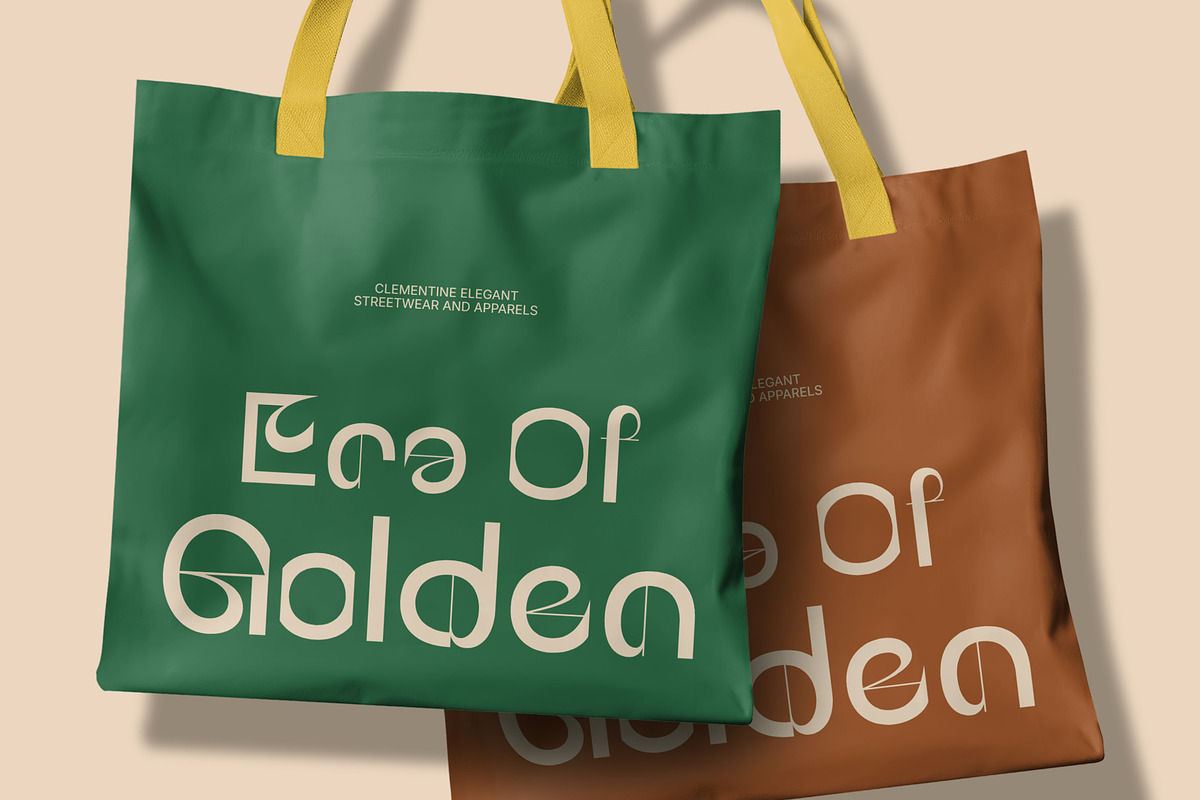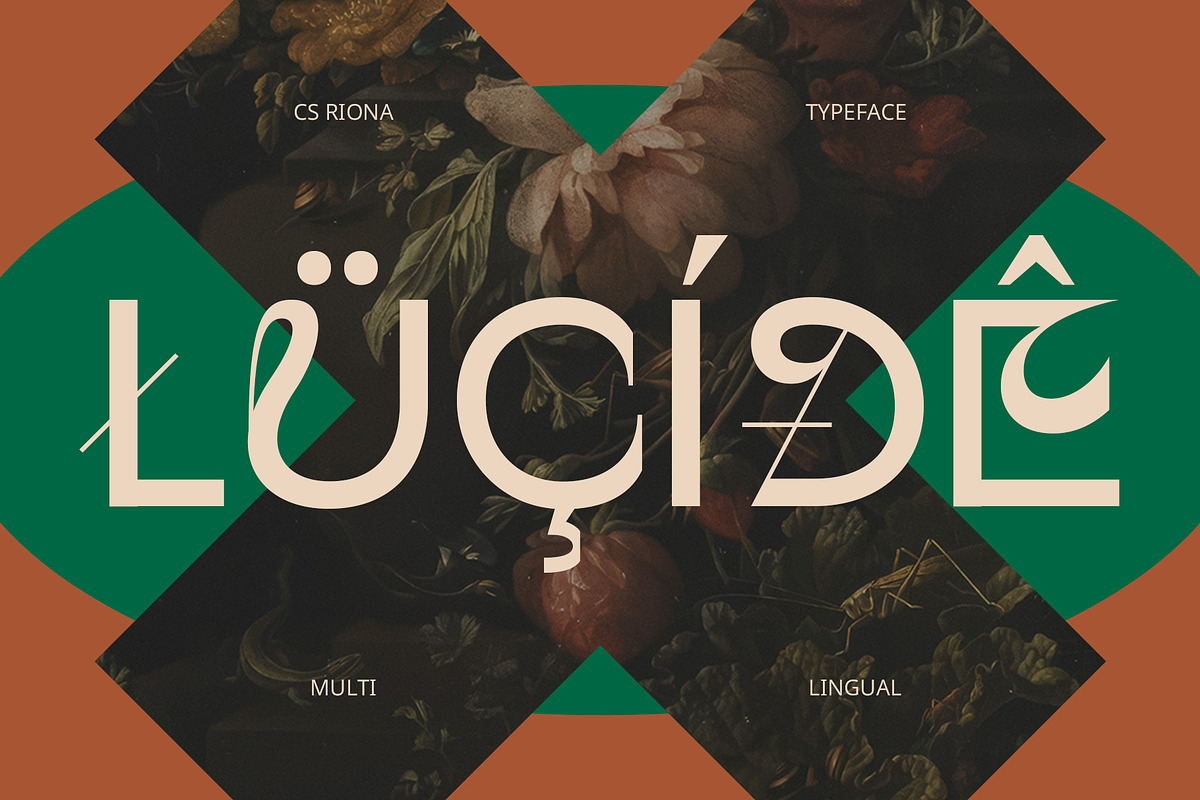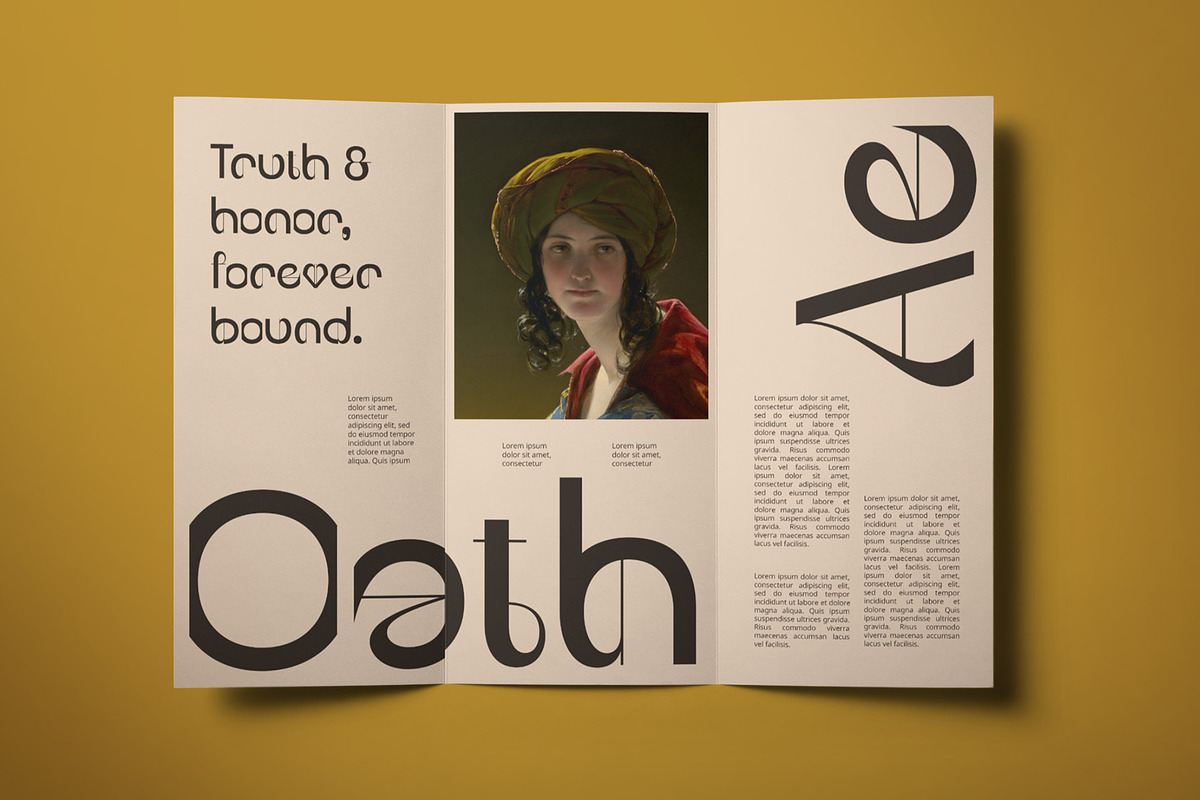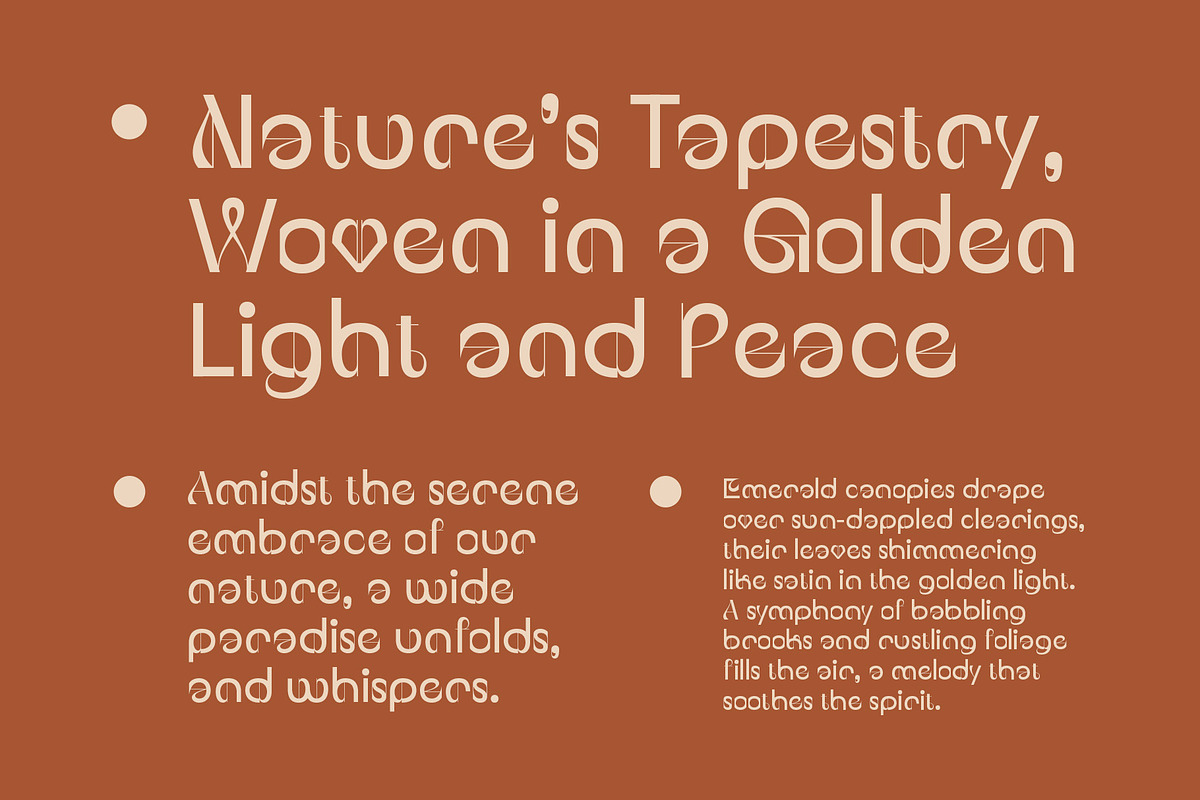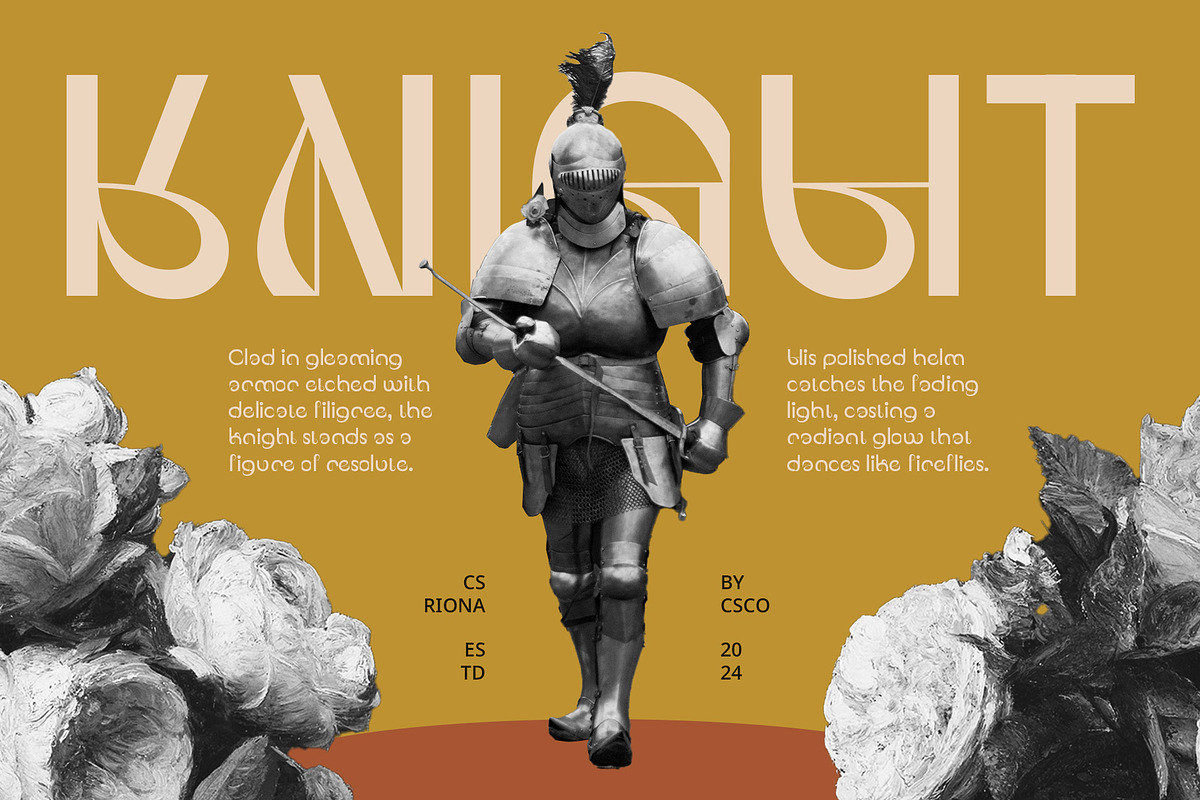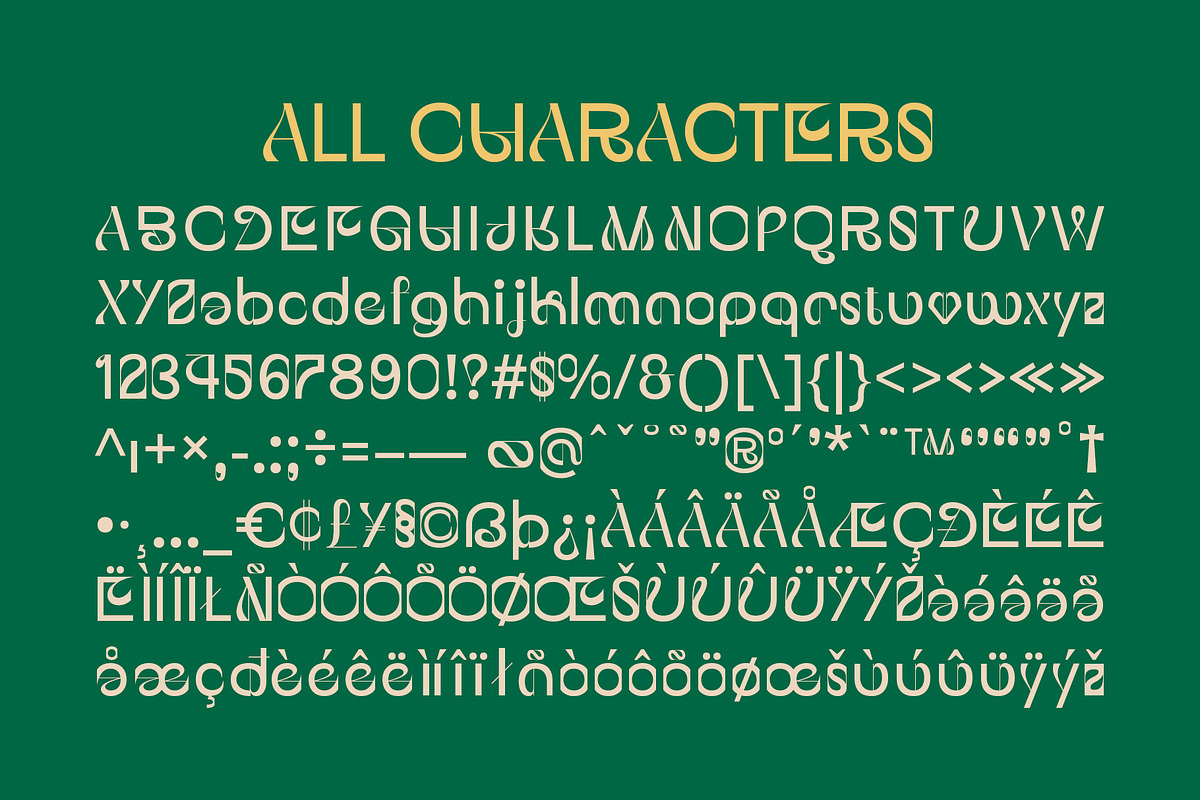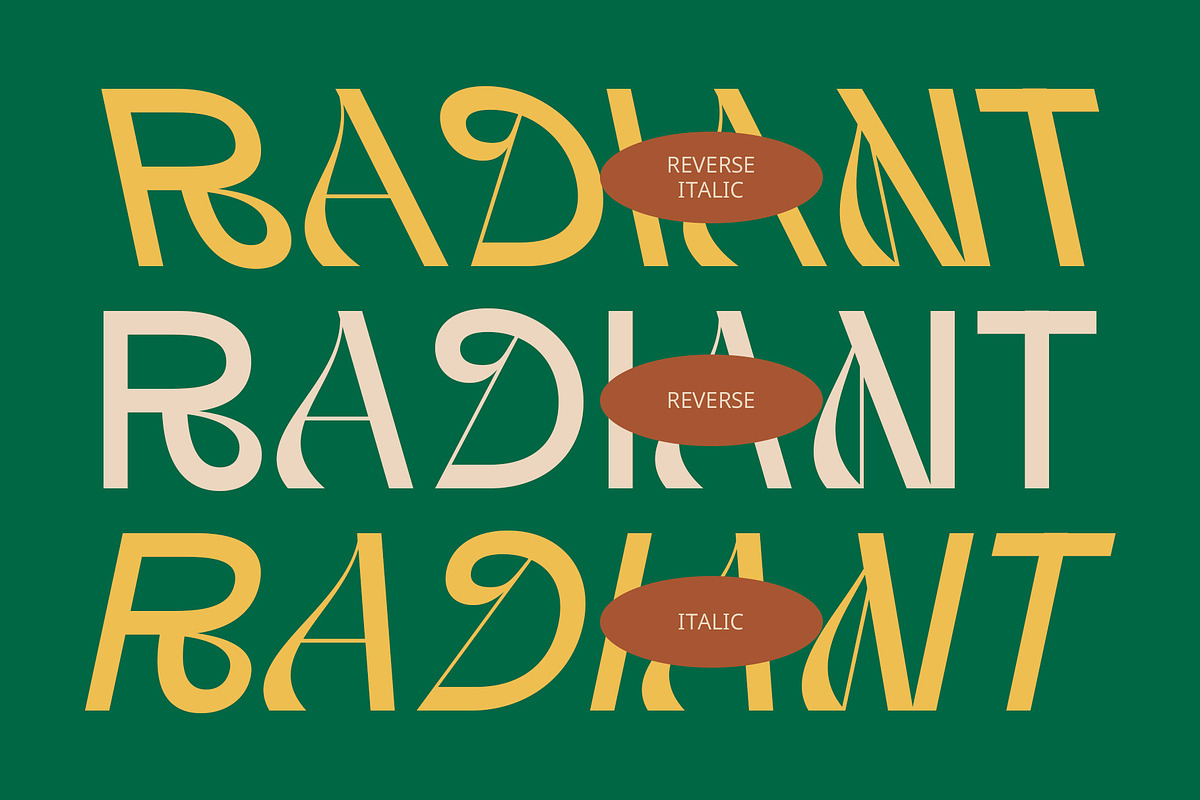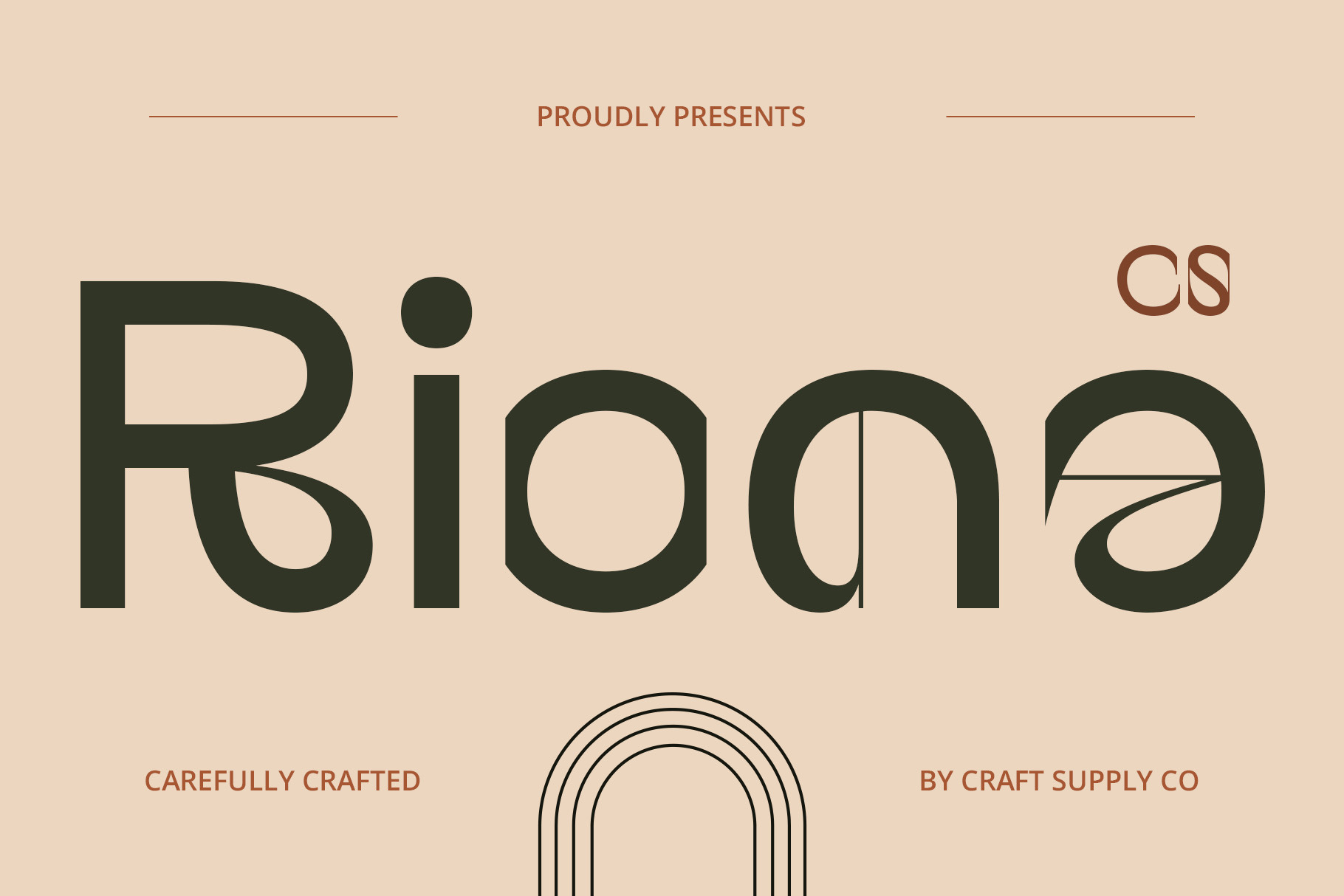
CS Riona – Decorative Font
CS Riona – Decorative Sans-Serif Font
Bold, Creative, and Unconventional Expression CS Riona is a modern sans-serif display font designed to captivate with its bold, distinctive style. It features a combination of visually engaging and unconventional design elements, including distorted letterforms and artistic ornaments that set it apart from the crowd. The strong lines and dynamic shapes give the font a confident presence, while its playful nature adds a creative flair.
Ideal for Fun, Energetic, and Youthful Designs This decorative font excels in projects that demand attention and creativity. Its striking appearance makes it well-suited for event posters, entertainment-focused branding, and any creative endeavor that calls for bold expression. Whether you’re promoting a music festival, designing a quirky product logo, or creating eye-catching visuals for an advertising campaign, CS Riona brings an energy that captures the essence of fun and excitement.
A Funky, Playful Vibe with a Unique Edge CS Riona’s playful and dynamic character makes it ideal for designs that need to communicate a sense of individuality and creative freedom. The font’s distorted and exaggerated letterforms are full of personality, and the added artistic flourishes make each letter a visual delight. It speaks to a youthful, energetic audience, making it perfect for brands or campaigns that embrace creativity, uniqueness, and boldness.
- CS Riona Regular
- CS Riona Italic
- CS Riona Reverse Italic